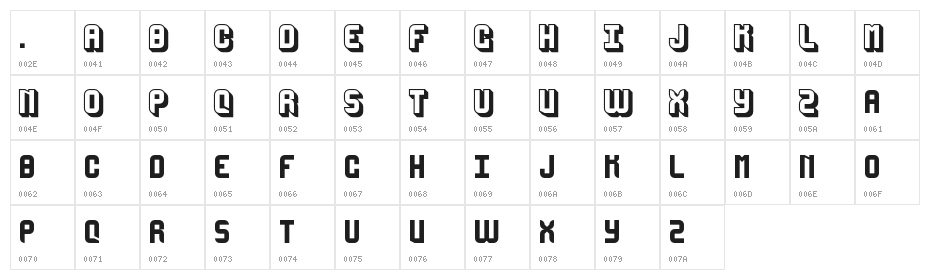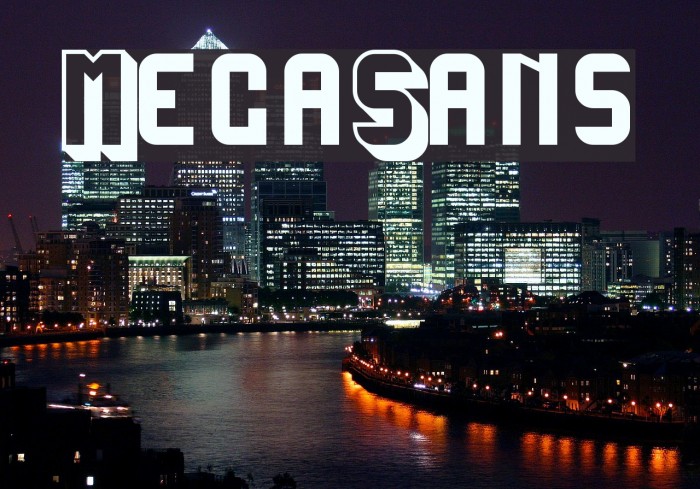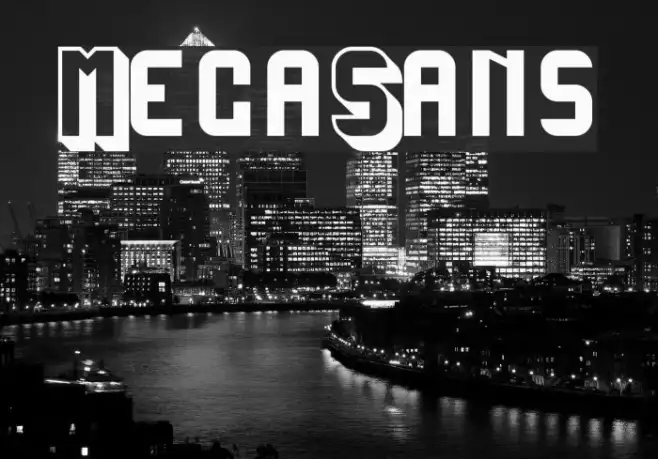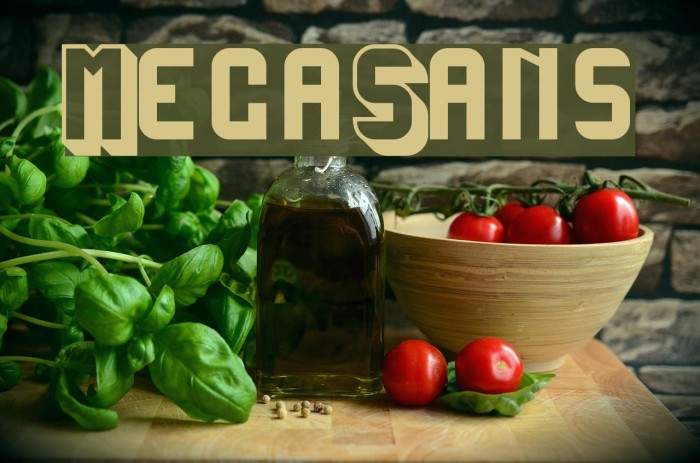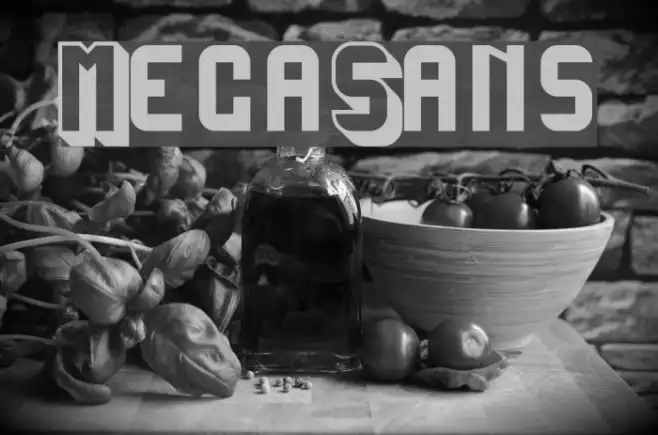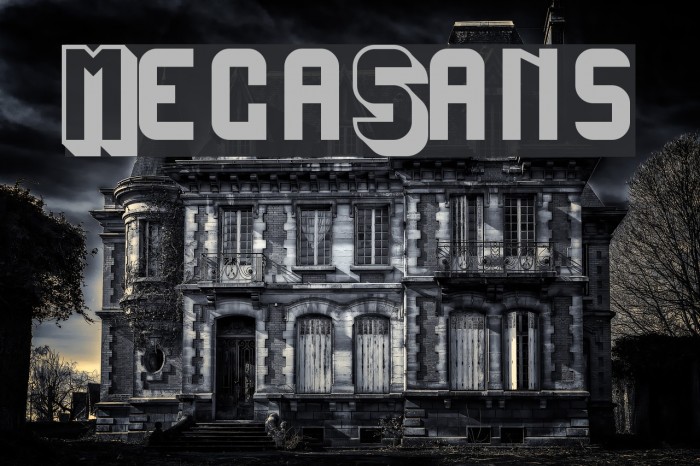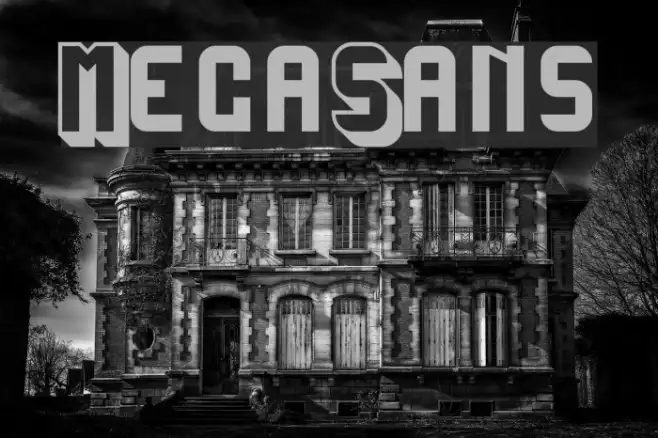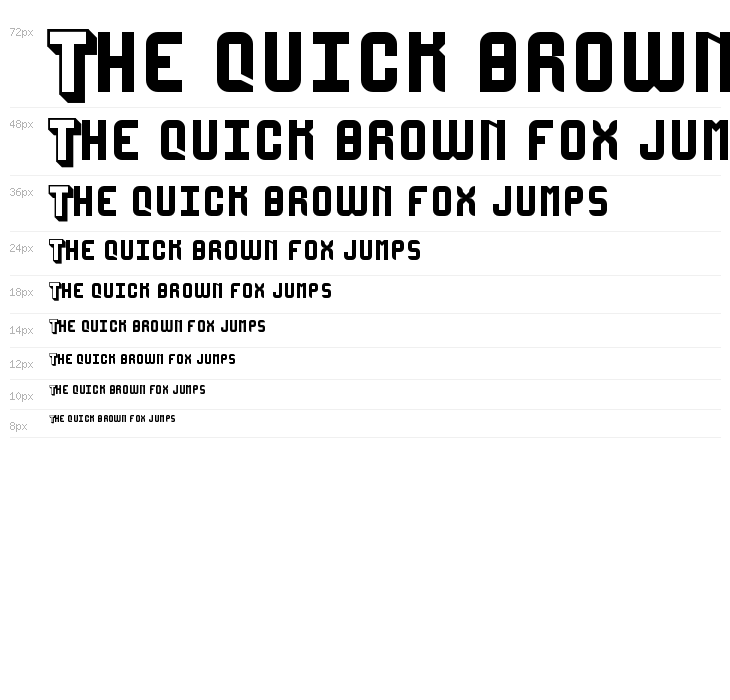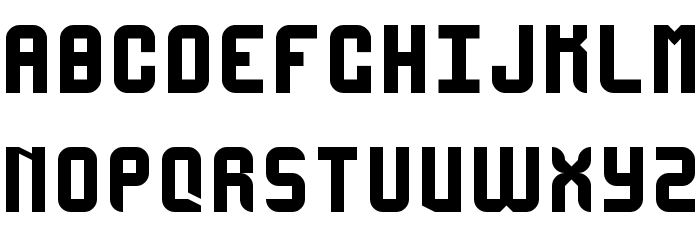
MegaSans Font
MegaSans Description
This font features a bold, geometric design with a strong three-dimensional effect, achieved through a shadowed outline. The uppercase letters are blocky and robust, giving a sense of strength and modernity. The font's style is reminiscent of retro gaming or arcade aesthetics, with a playful yet assertive presence. The characters are evenly spaced, ensuring readability while maintaining a compact appearance. The shadow effect adds depth, making it suitable for eye-catching headlines or logos. Its unique style makes it stand out, perfect for projects that require a bold statement.
Proposed ProjectsGreat for video game titles, posters, logos, and any design needing a bold, retro-modern look.